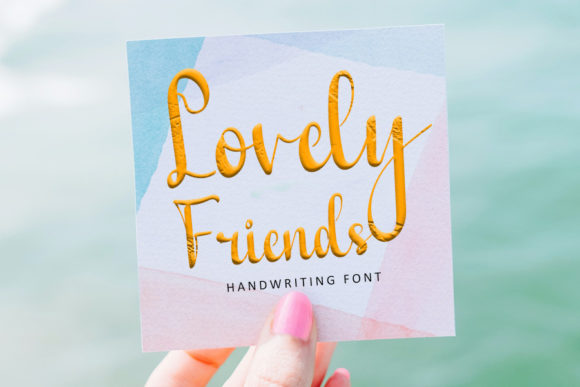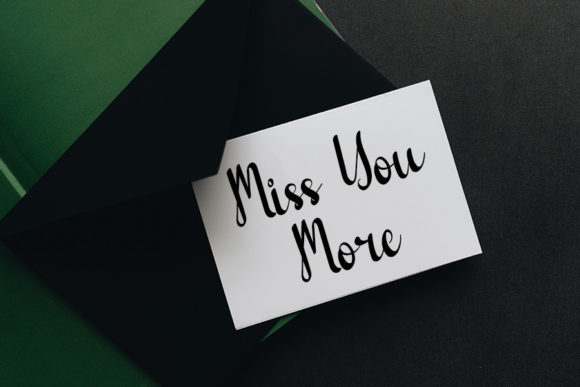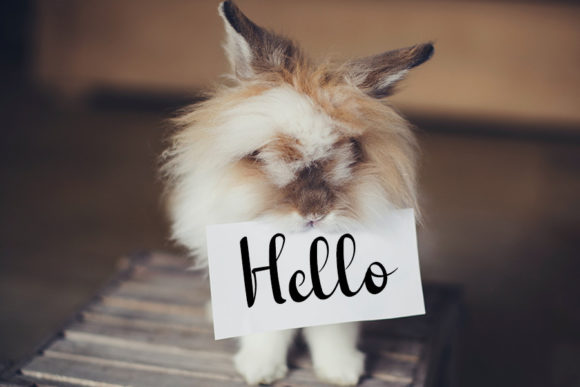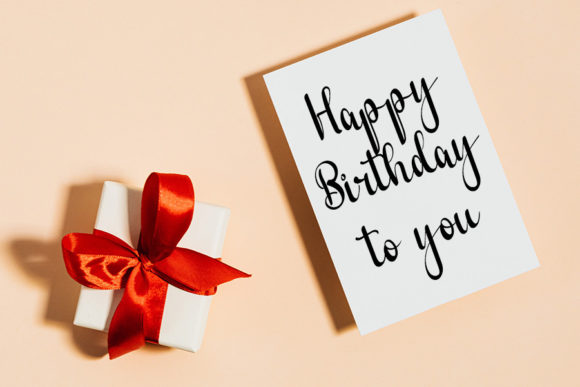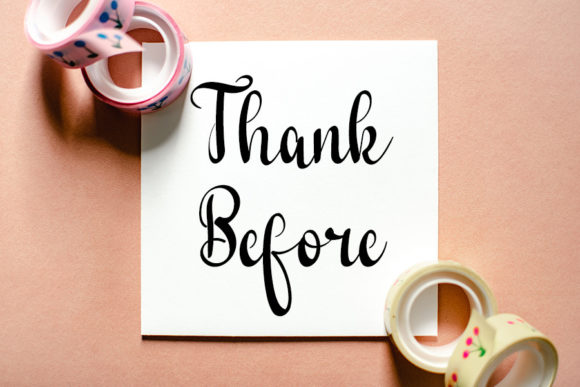
Lovely Friends Font
About Lovely Friends Font
Introducing “Lovely Friends,” a well-balanced handwritten font infused with a contemporary atmosphere and impeccable form, drawing inspiration from timeless classic calligraphy. With its versatile style, Lovely Friends shines in a wide range of contexts, making your designs stand out with elegance and charm.
Whether you’re creating wedding invitations, branding materials, quotes, or any other design project, Lovely Friends delivers exceptional results. Its balanced strokes and timeless appeal bring a touch of sophistication to your work, ensuring that it captivates viewers and leaves a lasting impression.
Experience the beauty and versatility of Lovely Friends and watch as it elevates your designs to new heights. Whether you’re a professional designer or a passionate enthusiast, this font invites you to explore new possibilities and express yourself with confidence and style.